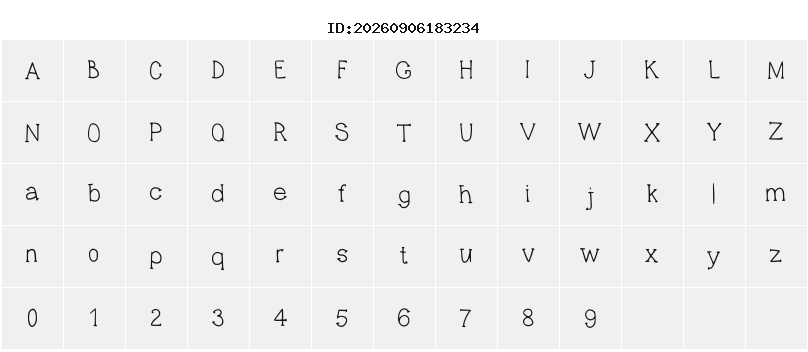
• Font Name: THINK
• Full Font Name: THINK Regular
About THINK.ttf
THINK.ttf is a modern, elegant sans-serif font designed for ultimate readability and visual harmony. Perfect for branding, headlines, web design, and print materials.